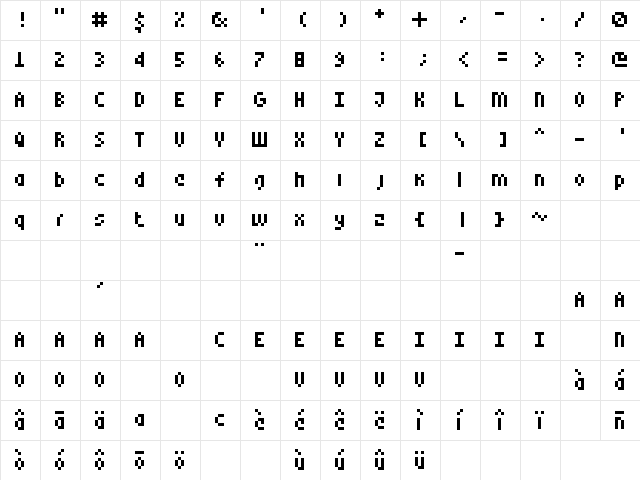
Dysfunction Circuit Regular
Design Context for Dysfunction Circuit Typeface
Dysfunction Circuit has an approachable, lighthearted character — its loose, expressive forms are well-suited to children's content, casual branding, and fun-first design.
Font Pairing: Pairs well with a rounded or humanist sans for body copy, maintaining the friendly tone without relying on Dysfunction Circuit to carry extended reading.
Pro Tip: Use Dysfunction Circuit at larger display sizes where its expressive character can land. Pair with a clean, simple sans for body copy to maintain readability.